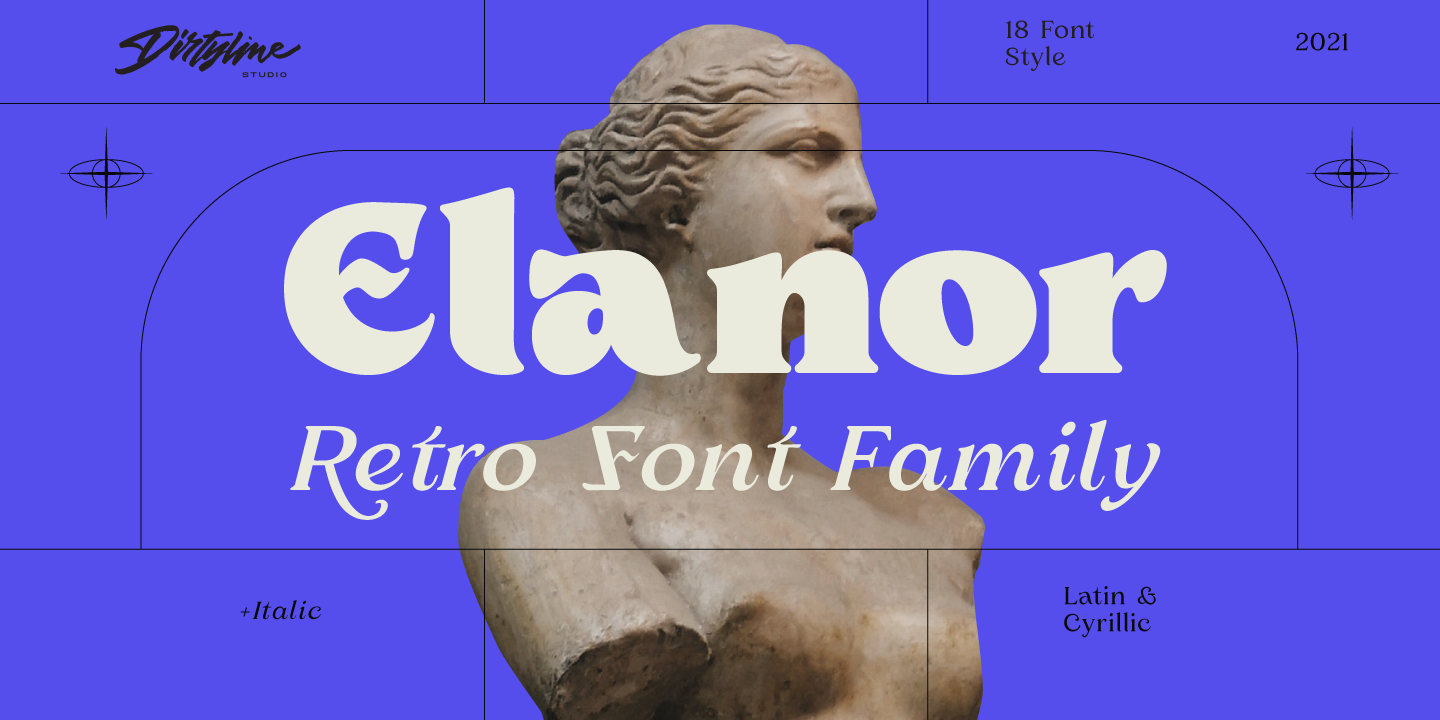
Elanor Font is an exceptional choice for projects that demand elegance, readability, and a touch of enchanting, often fantasy-inspired sophistication. It's perfectly suited for fantasy novel covers, wedding invitations with a whimsical flair, mystical branding, elegant stationery, and any application where you want to evoke a sense of timeless beauty, magical allure, and refined charm. Imagine it gracing the title page of an epic saga, adding an ethereal touch to a bespoke jewelry brand, or giving a distinctive, handcrafted feel to a unique event's branding. Its graceful curves and delicate serifs ensure your message is conveyed with both profound beauty and undeniable allure.
What makes Elanor Font so exciting is its remarkable ability to blend classic typographic aesthetics with a subtle, imaginative twist. It offers excellent legibility while possessing a distinctive personality that sets it apart, hinting at ancient lore and hidden realms. This font isn't just about conveying information; it’s about shaping an experience, immersing the viewer in a world of refined fantasy and delicate wonder. It’s the ideal tool for designers who want to create visuals that are not only deeply readable but also exquisitely styled with an artistic, almost magical touch.
The Elanor Font family typically offers a range of weights and styles to provide comprehensive design flexibility. You can expect to find a broad spectrum from a delicate Light or Thin, through a versatile Regular, to a commanding Bold or Black weight, often accompanied by corresponding italic versions. This extensive range allows for sophisticated typographic hierarchies and ensures that whether you need subtle annotations or prominent headlines, the Elanor Font Free Download provides the foundational versatility to achieve a cohesive, elegant, and highly professional design across all your platforms.